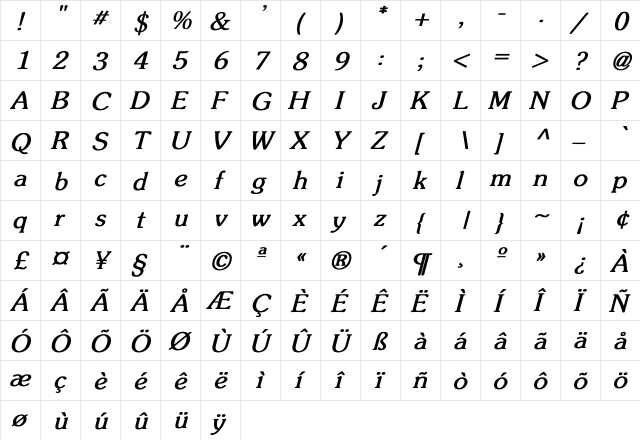
Souvenir Bold Italic
Design Context for Souvenir Typeface
Souvenir is a composed and adaptable typeface that performs quietly and consistently across a wide range of design contexts. Its italic angle brings a sense of urgency and motion to the letterforms. The heavy weight commands attention and anchors typographic hierarchies.
Pro Tip: Try Souvenir for annotation and caption copy alongside an upright companion — the contrast in angle creates a dynamic but ordered typographic system.